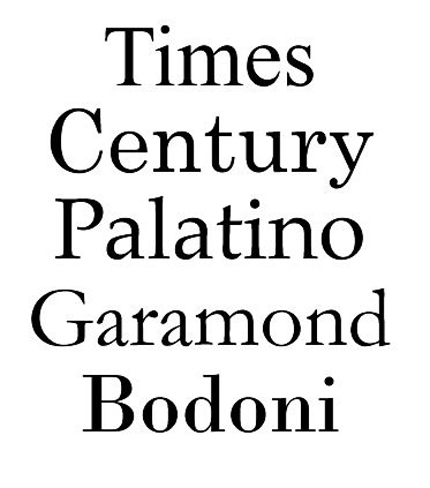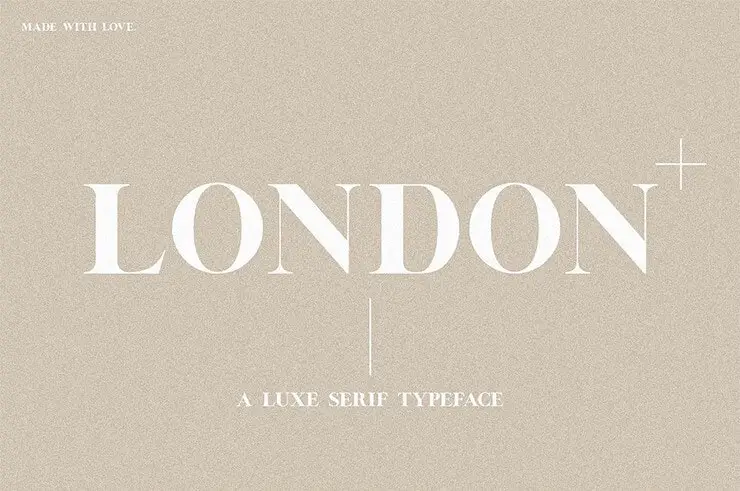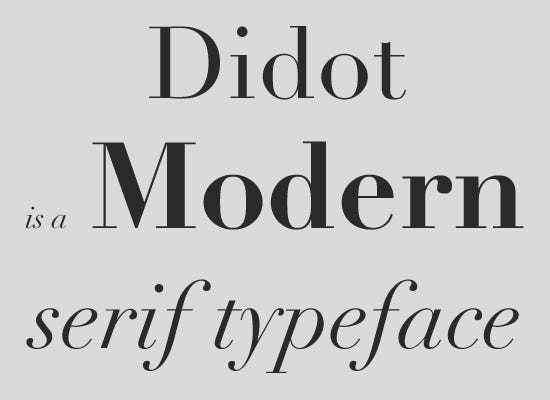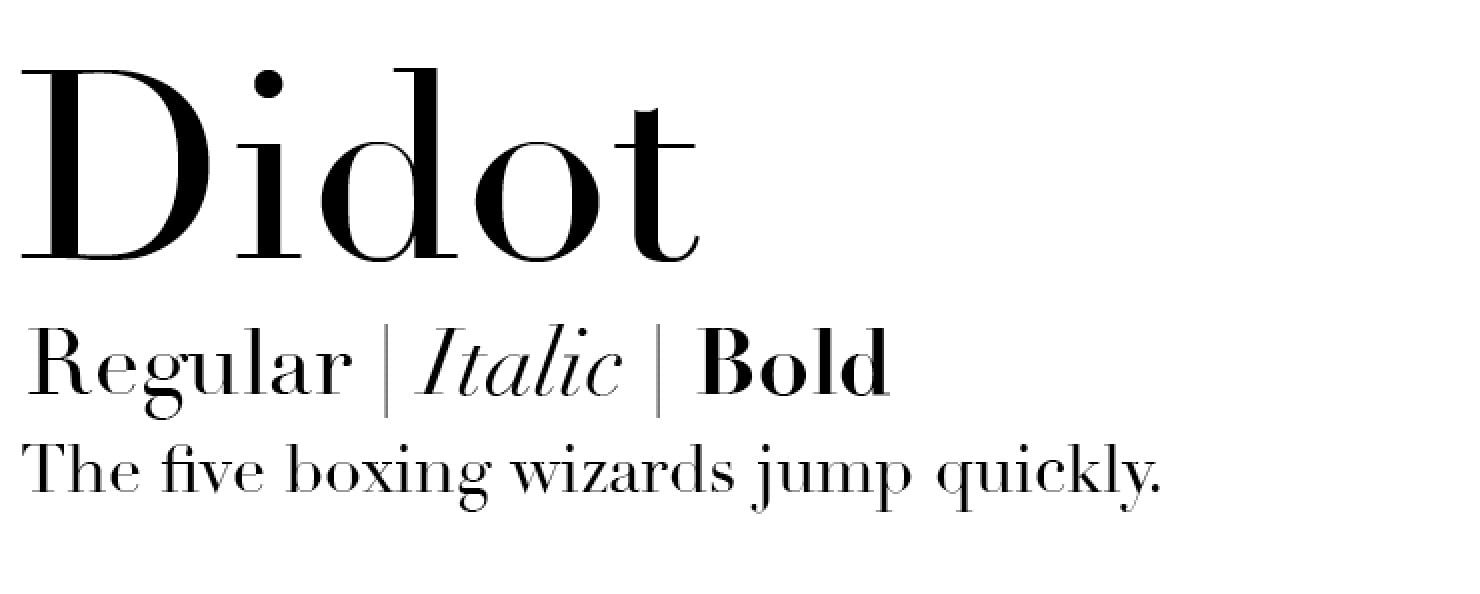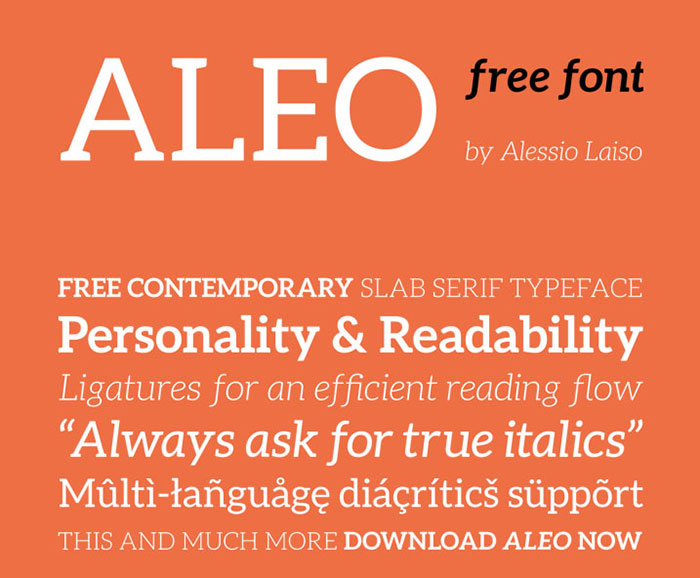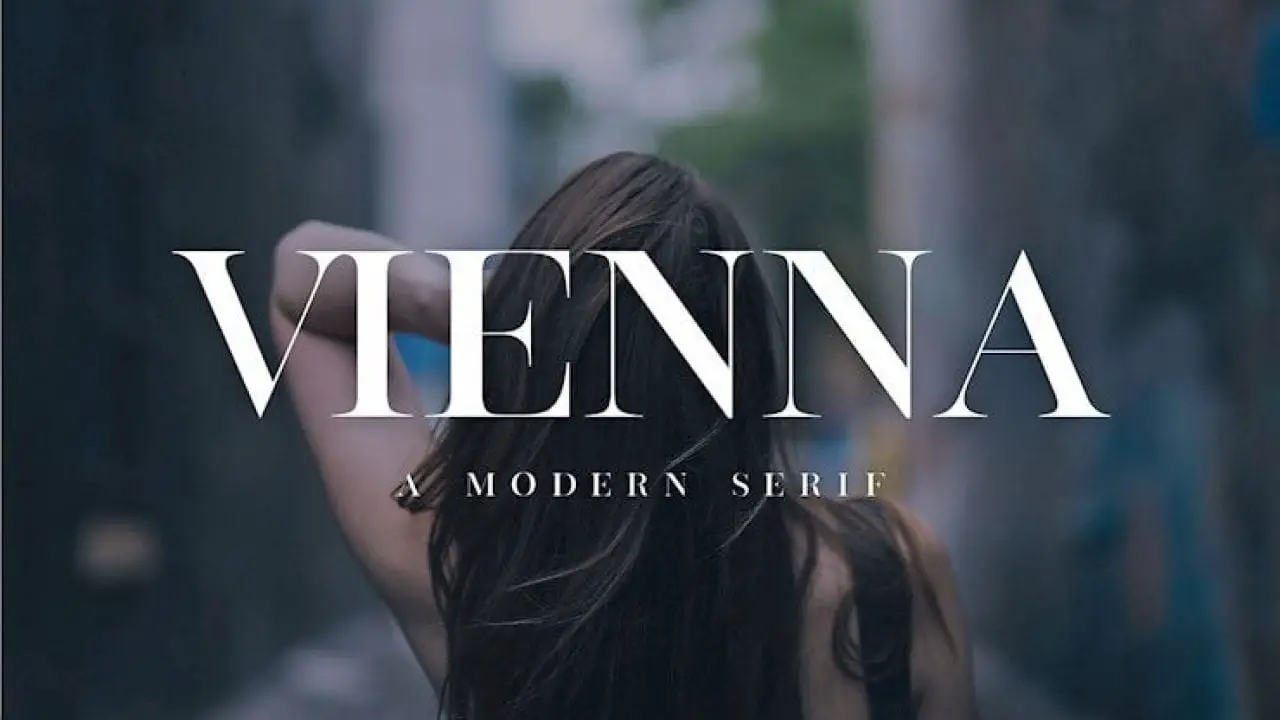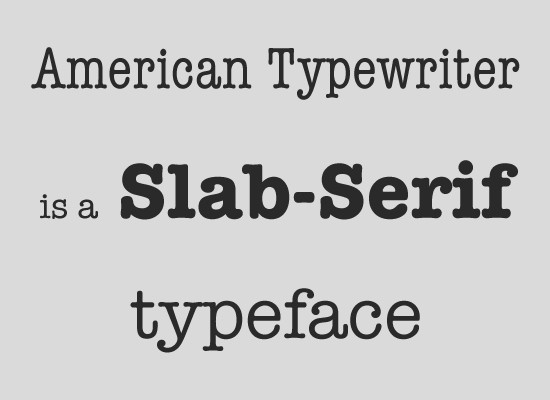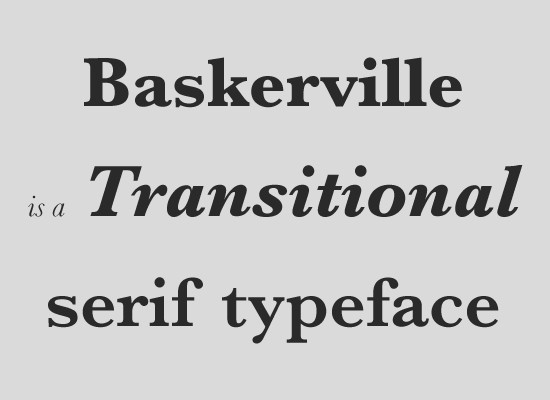
Exclusive Download Free Fonts Serif Typography 2 Comments 31 Free Font. Fonts W3C font-family Mozilla Developer Network bugzilla49965 Best Practices of Combining Typefaces Sans serif and serif typefaces can be effectively combined if changes are limited to prevent visual chaos.
It is unique but classic quirky but readable and perfect for all types of projects including packaging posters books and more.
Typography serif fonts. 215 of 1052 families. And here are the alternatives to Courier Garamond and Times new Roman. Wild Ones presents Weem a serif handwritting font its sketchy but a strong bone underneath.
Heres a visual guide on the difference between serif fonts and sans serif fonts. Some of the most popular sans serif fonts on the black include Arial Helvetica Proxima Nova Futura and Calibri. Streusel Kuchen is a relaxed handwritten serif font.
The fine details of serifs especially the more delicate and high-contrast designs dont always display well on screens. Milk is a bold sans serif font that commands attention. Serifs have their roots in ancient Roman square capitals and became widely used with the advent of the printing press.
Morefren is a elegant and classy serif typeface This font is both modern and nostalgic and works great for logos magazine social media etc. The font family includes 3 different styles featuring light regular and bold font weights. Why This Is A Top Pick.
The serifs are placed at an angle which makes it an easy-to-read typeface. Ideal for playful and a bit serious designs - as for headline. Already matched up and ready to be used together for your next design.
They are often used in books magazines and newspapers as serif fonts are considered easier to read in long-form use cases. Download 1023 Serif Fonts. Serif Language Font properties Show only variable fonts.
A typeface or font-family making use of serifs is called a serif typeface. The connection to the scribes can be seen in the rounded strokes and thick to thin lines. Hello introducing the new Morefren Serif Ligature Font.
Streusel Kuchen has a complete character set with uppercase lowercase punctuation numerals and Western and Central European glyph support. Google Fonts is a library of 1052 free licensed font families and APIs for conveniently using the fonts via CSS and Android. Serif typefaces tend to be thought of as classic and traditional whereas sans-serif typefaces are thought of as more modern and contemporary.
As an added bonus it also comes with 15 abstract shapes in vector file formats. Examples of serif font styles are old-style serif fonts such as Garamond. 1001 Free Fonts offers the best selection of Serif Fonts for Windows and Macintosh.
These serif fonts are typically used in newspapers because they make reading quick and easy. Best Sans Serif Fonts Free. The font is free for both personal and commercial use.
Pomino is a family of serif fonts that comes with multiple styles you can choose from to craft various professional designs. The key is to ensure that the result respects the content and reinforces the information hierarchy and overall. Some of the most commonly used serif fonts include Times New Roman Garamond Baskerville Georgia and Courier New.
A serif font is a font with small strokes or extensions at the end of its longer strokes. Old Style serif fonts date back to the 1400s and were inspired by the calligraphy of the day. In typography a serif is a small line or stroke regularly attached to the end of a larger stroke in a letter or symbol within a particular font or family of fonts.